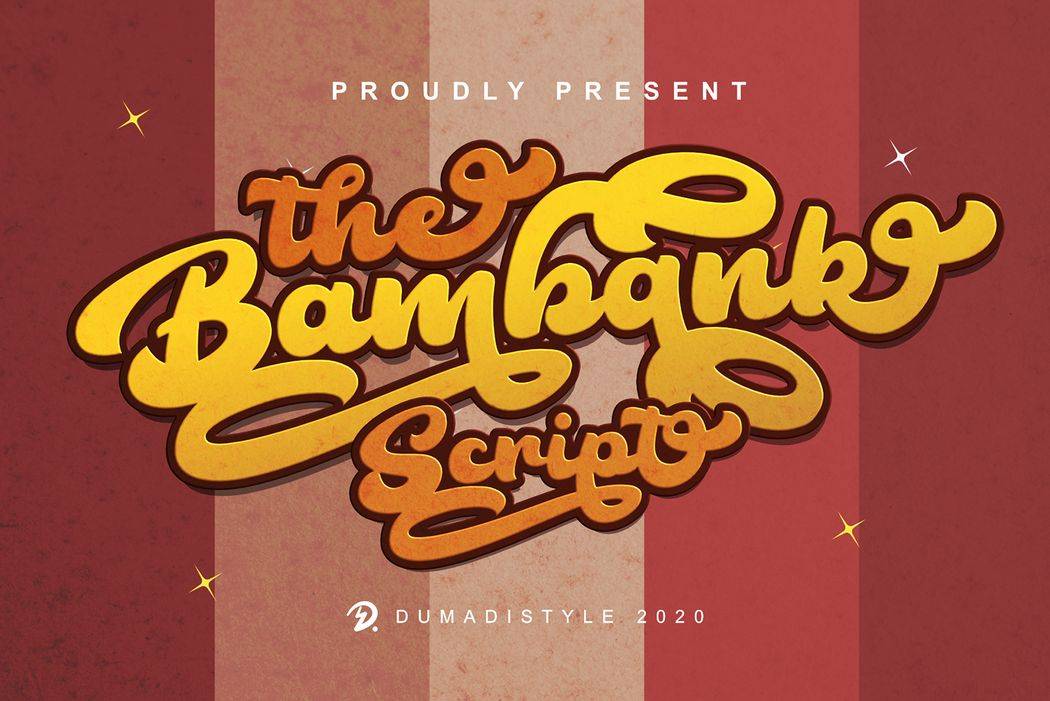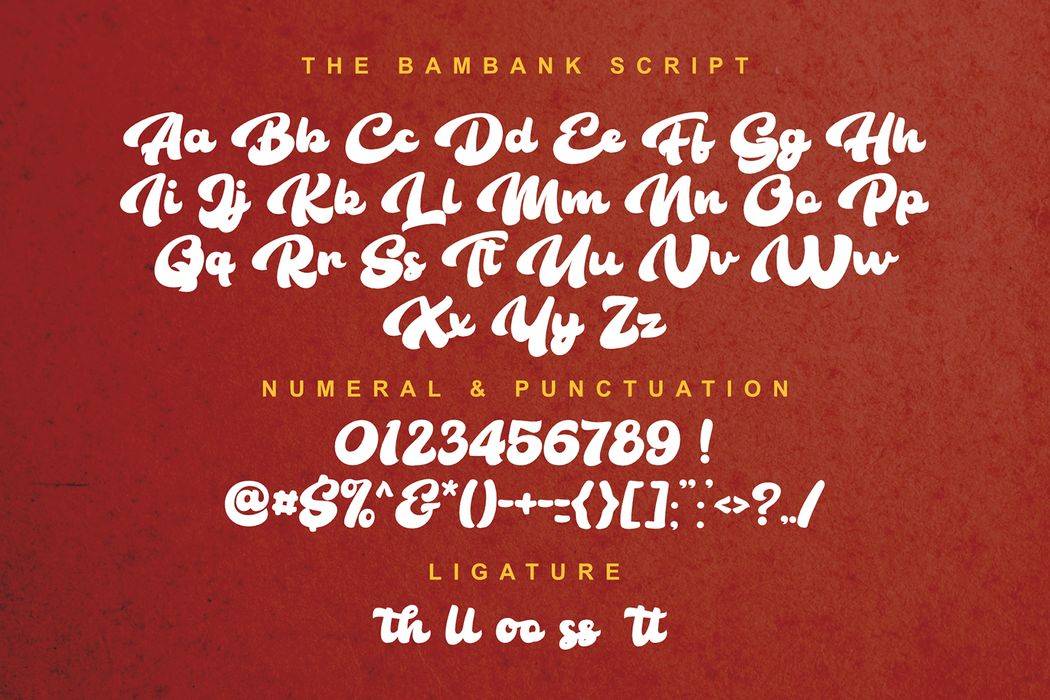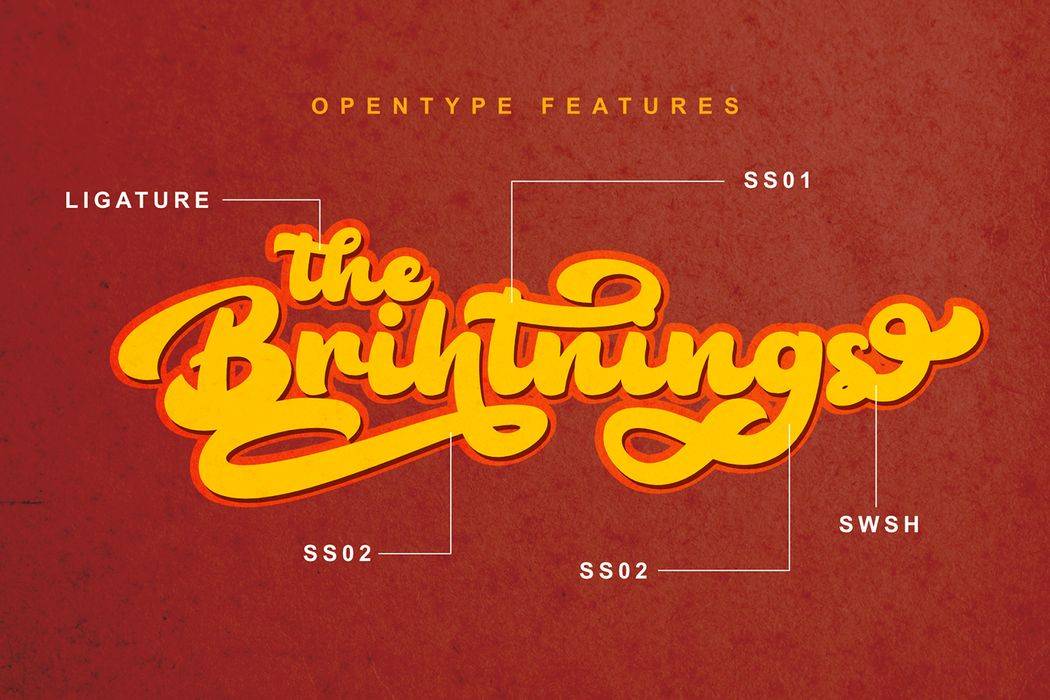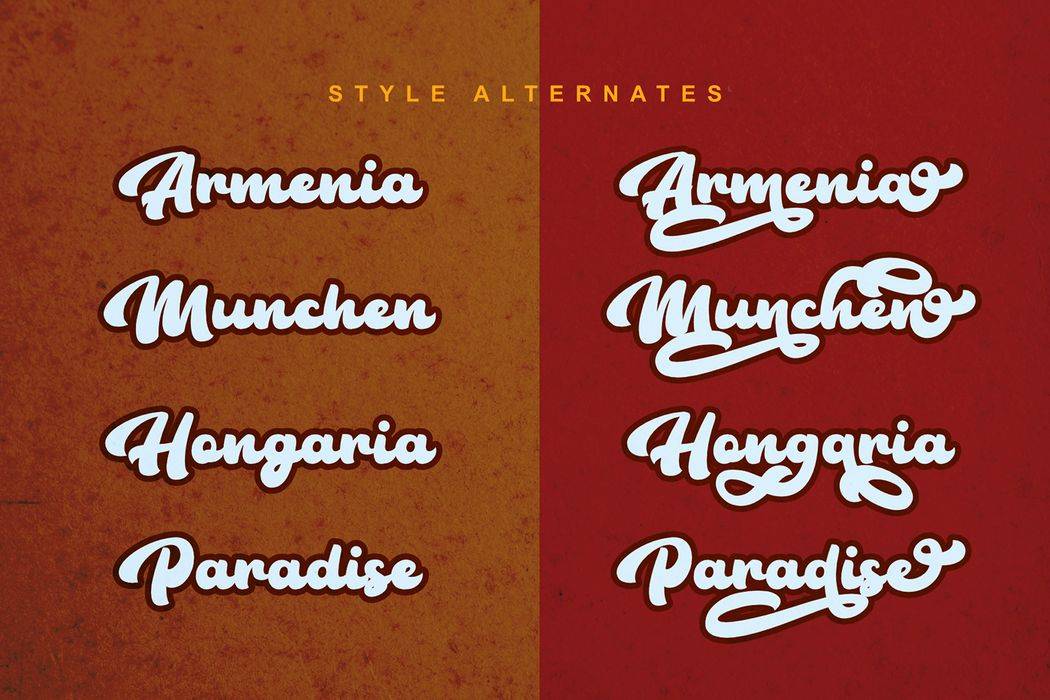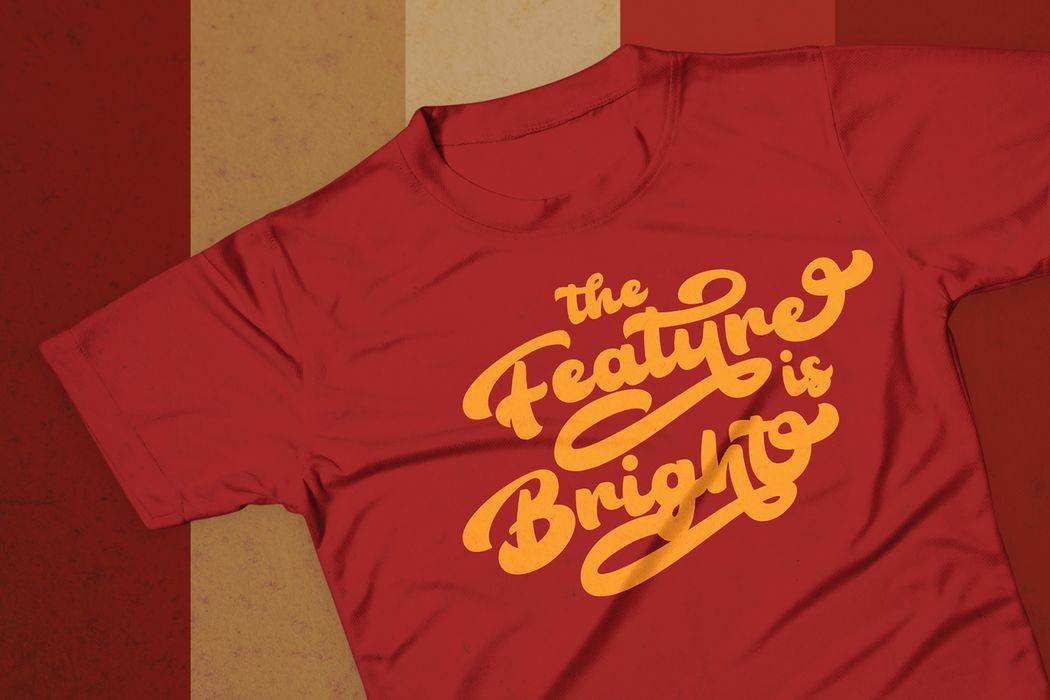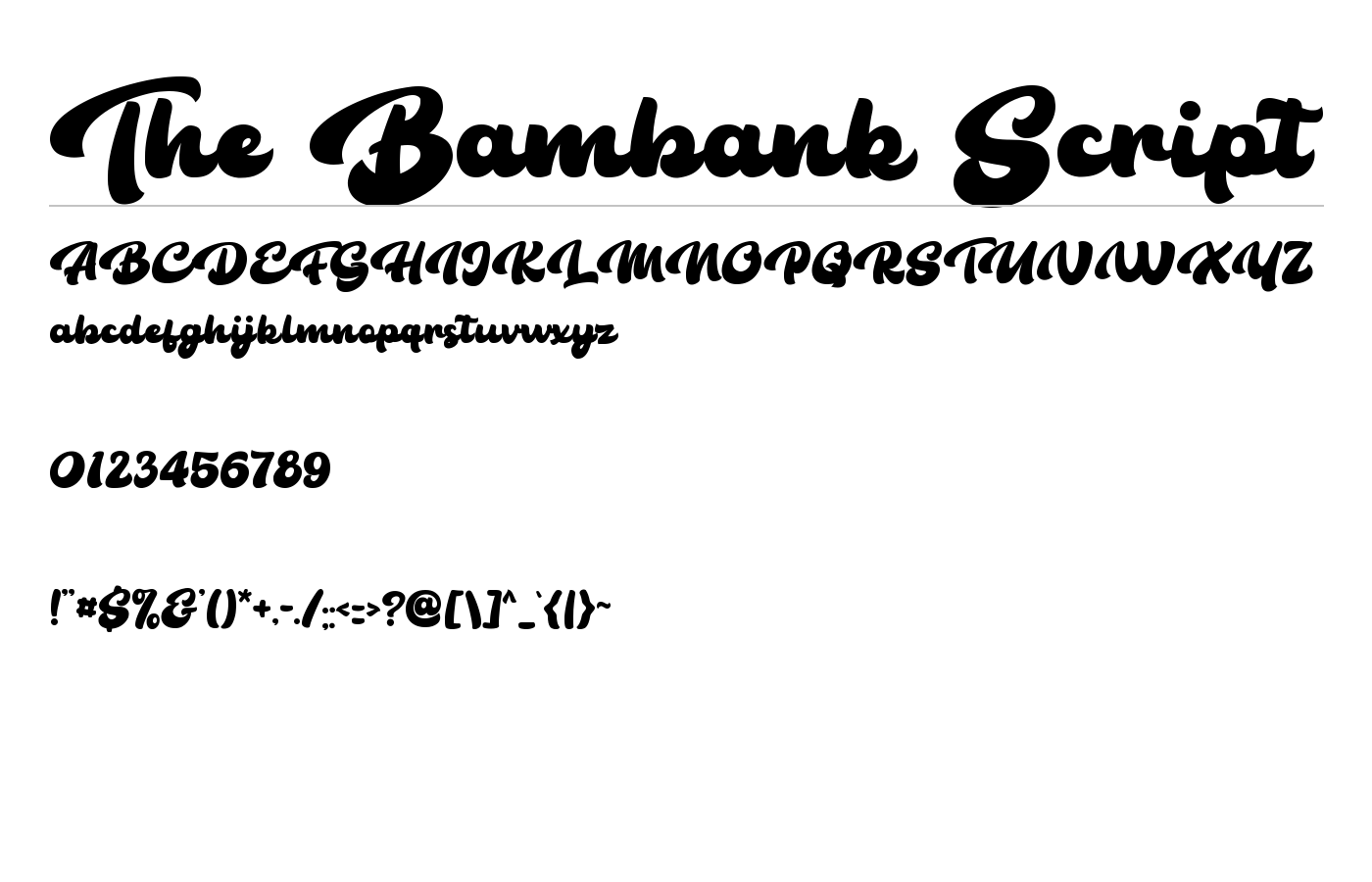
The Bambank Font is a bold, rounded script typeface with a playful yet confident personality. Its thick strokes and smooth curves give it a friendly and approachable feel, making it ideal for logos, headlines, and branding that aim to be memorable and inviting. This font works well in creative and casual settings where a strong, energetic style is desired.
The Bambank Font
About The Bambank Font
| Font family | The Bambank Font |
| Designer | Toni Dzulham |